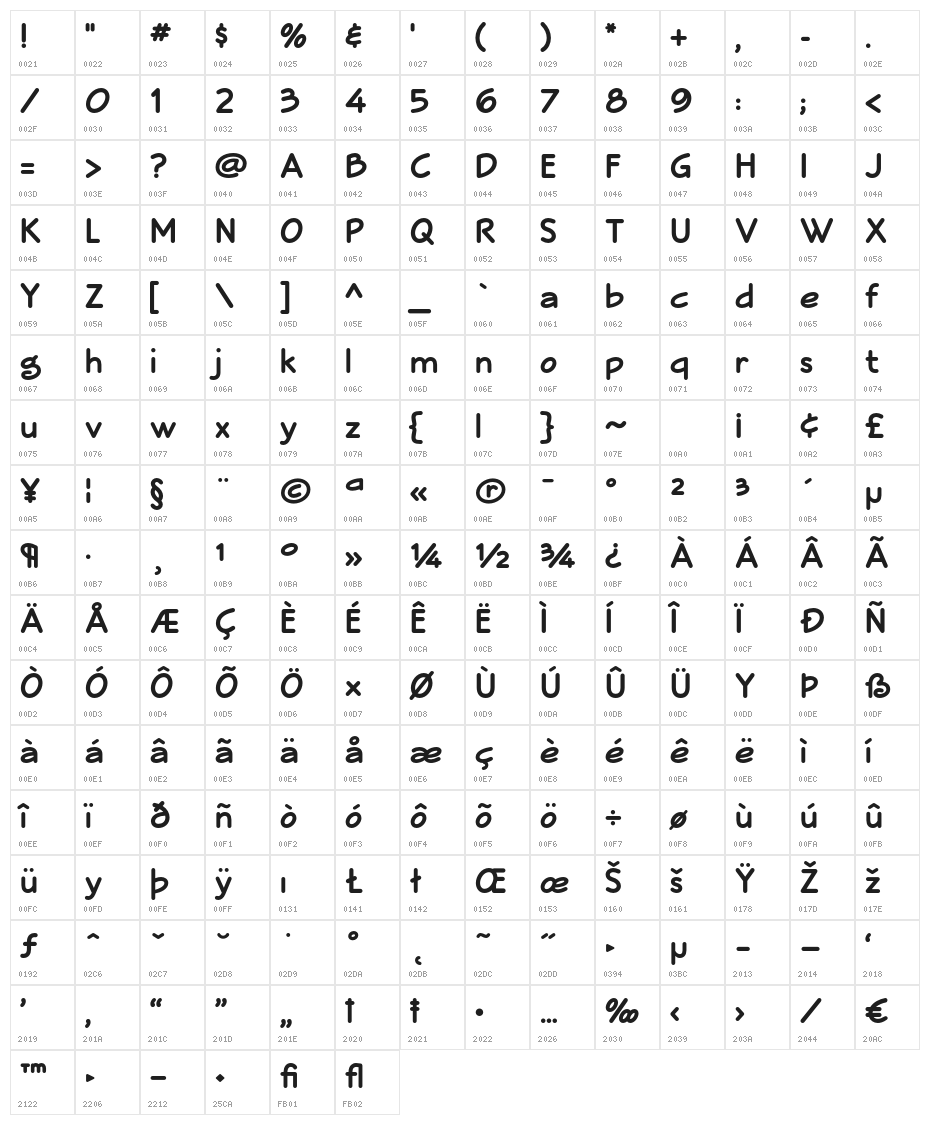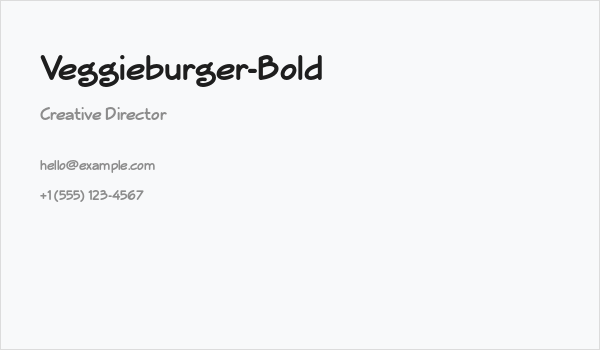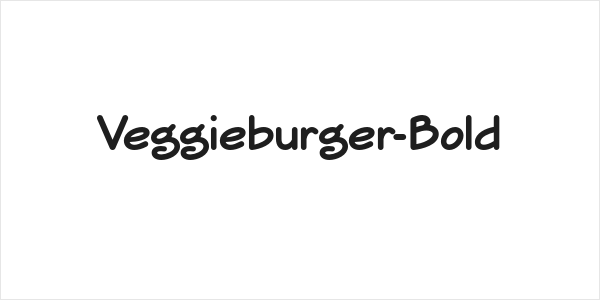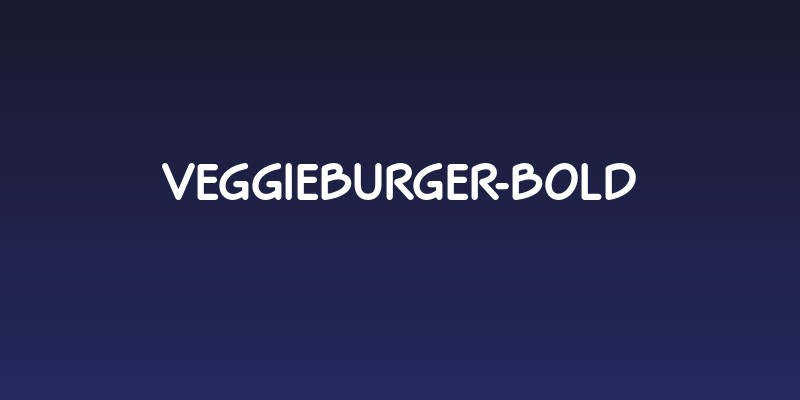
Veggieburger-Bold Font
Veggieburger-Bold Description
This font features a playful and rounded style, characterized by its bold and smooth curves. The letters are evenly weighted, providing a sense of balance and approachability. Its rounded edges and uniform stroke width give it a friendly and modern appearance, making it suitable for a variety of creative projects. The font maintains a consistent and clean look across both uppercase and lowercase letters, as well as numbers and special characters. Its simplicity and readability make it versatile for both digital and print media.
| Proposed Projects | Ideal for children's books, playful branding, product packaging, and casual digital content. |